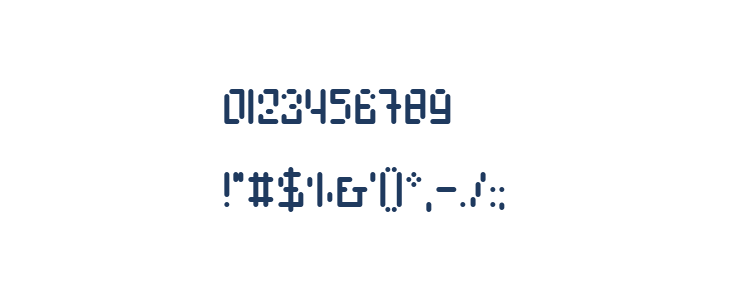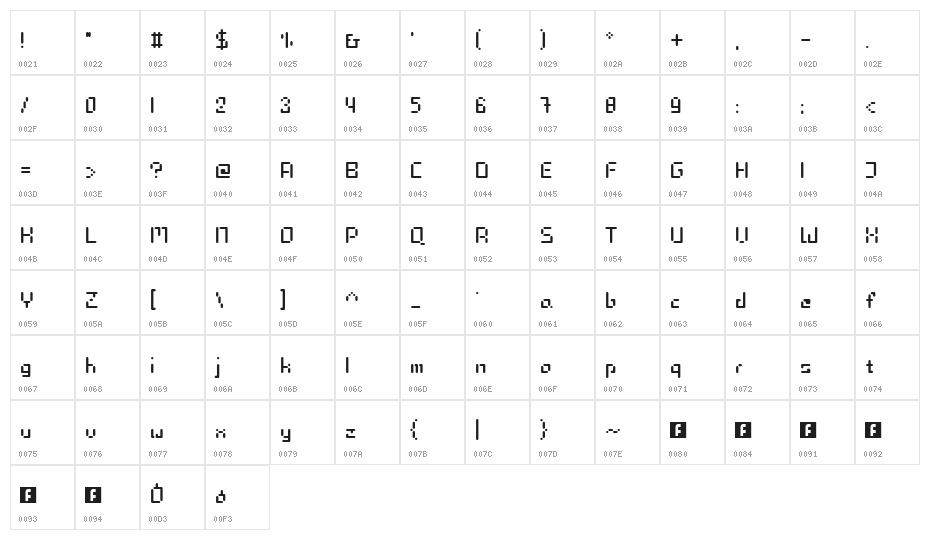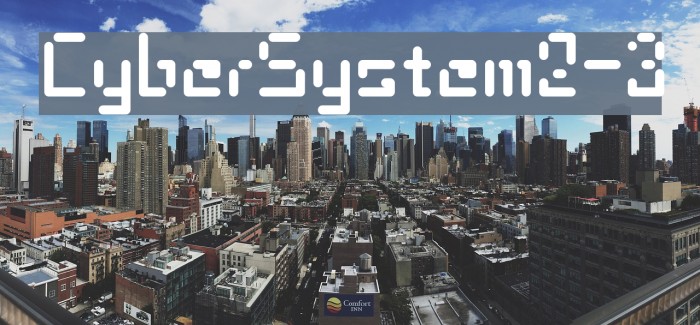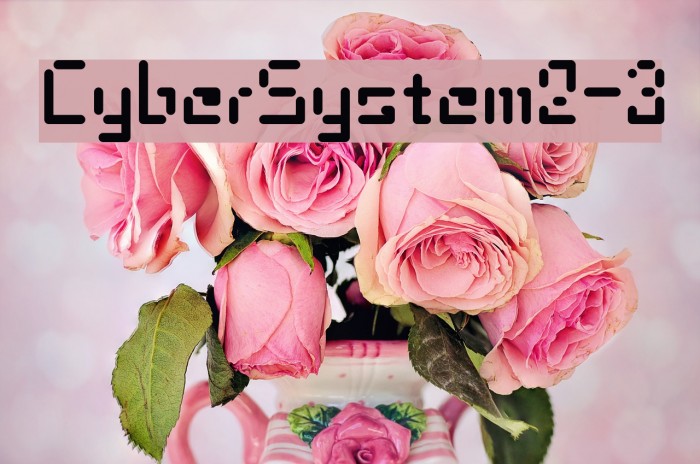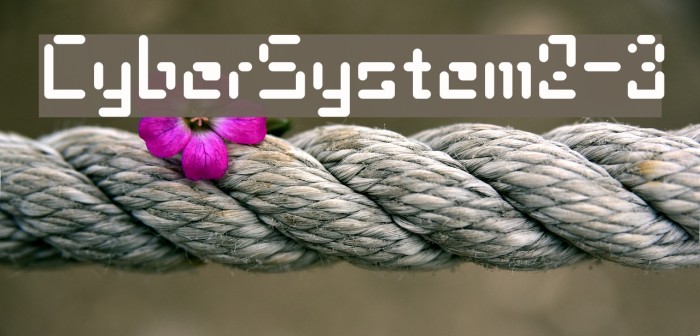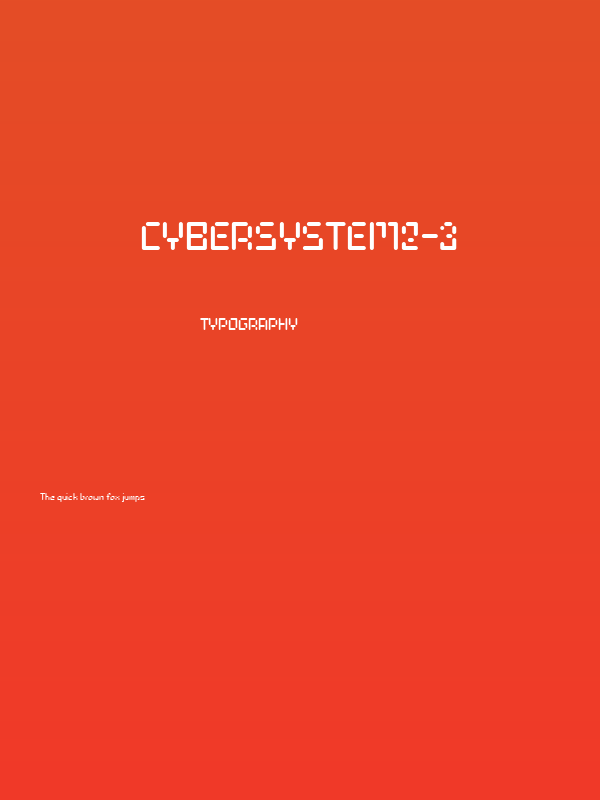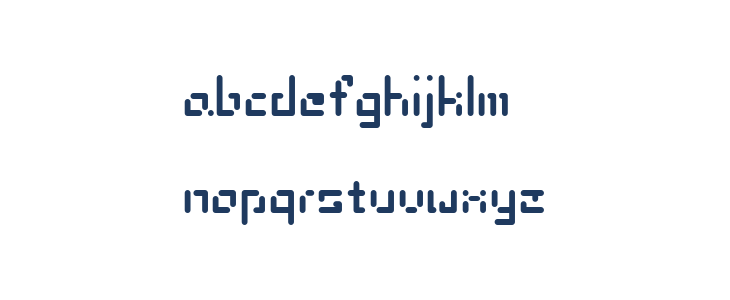
CyberSystem2-3 Font
CyberSystem2-3 Description
This font features a futuristic, digital aesthetic with a geometric structure. The characters are composed of rounded edges and consistent stroke widths, giving it a modern and technological feel. The uppercase and lowercase letters maintain a uniform height, enhancing readability while preserving a unique style. The numbers and special characters follow the same design principles, making them cohesive with the alphabet. This font's distinct appearance is reminiscent of digital displays or sci-fi themes, making it ideal for projects that require a modern and innovative look.
| Use Case | Logos, Headlines, Digital Interfaces |
| Proposed Projects | Ideal for tech-related branding, sci-fi book covers, digital interfaces, and modern posters. |